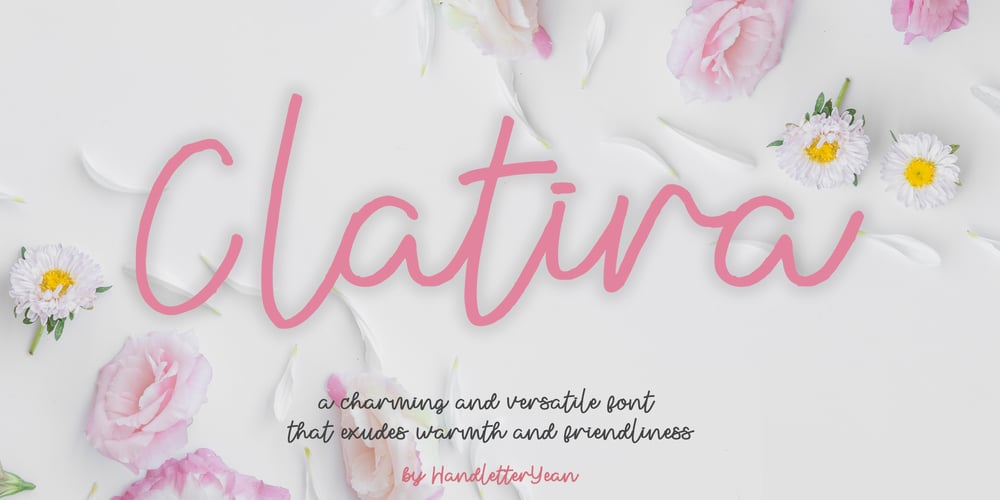
Clatira Font Family was designed by Yean Aguste and published by HandletterYean. Clatira contains 4 styles and family package options. Clatira is a charming and versatile font that exudes warmth and friendliness. Crafted with care and precision, Clatira is a monoline font, meaning each stroke maintains a consistent thickness throughout, giving it a smooth and uniform appearance. What sets Clatira apart is its handmade quality, created using a marker pen. This gives the font a unique and organic feel, as if each letter was lovingly drawn by hand. The slightly irregular edges and subtle variations in stroke width add character and personality to Clatira, making it perfect for projects that require a personal touch. Clatira is both elegant and approachable, making it suitable for a wide range of applications. Whether used for branding, packaging, invitations, or social media graphics, Clatira adds a touch of authenticity and warmth to any project. With its clean lines and effortless charm, Clatira is sure to make a memorable impression.